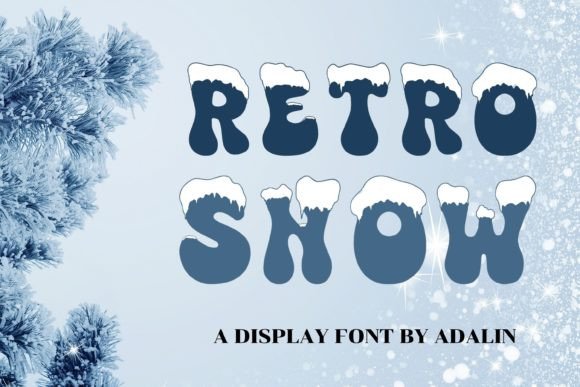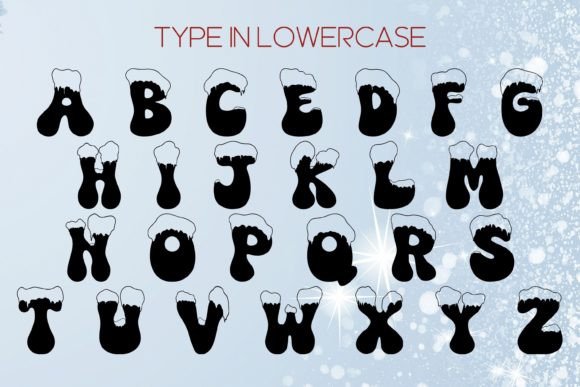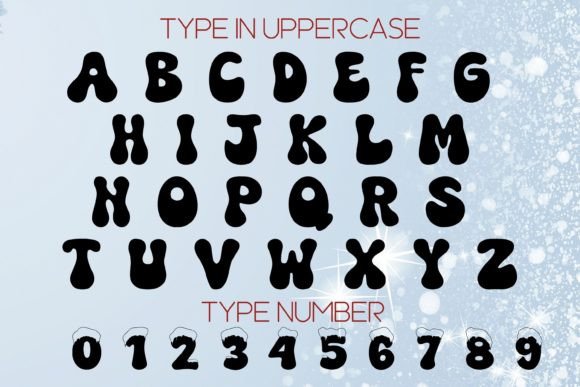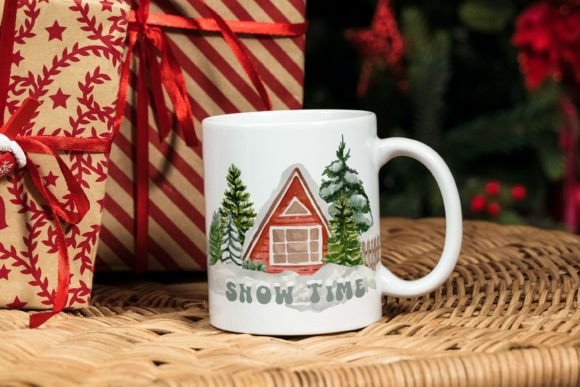
Retro Snow Font
About the Retro Snow Font
Let us introduce you to Retro Snow Font, where timeless design meets modern craftsmanship. Retro Snow is a cute decorative Christmas Font ideal for crafting, and perfect for designs that need a playful, cheery accent. Daisy Retro is suitable for book covers, posters, packaging, merchandise, logotypes, and many more!
Retro Snow’s playful, cheery nature makes it ideal for projects needing a festive and approachable feel. It excels in headlines, short slogans, and packaging designs, particularly for products targeting a younger demographic or those with a whimsical brand identity. Avoid using it for body text or longform content; its decorative style is less legible at smaller sizes.
For optimal visual balance, pair Retro Snow with a clean sans-serif like Open Sans for body copy or a more geometric sans-serif for a modern contrast. A simple serif like Merriweather can provide a touch of elegance and sophistication, grounding the playful nature of Retro Snow.
The font’s core personality is undeniably cheerful and light-hearted, making it a strong choice for brands focused on fun, festive, or family-oriented products. Consider it for holiday-themed projects, children’s books, or anything requiring a touch of vintage charm.
Retro Snow Font Usage Examples
Retro Snow Font Example